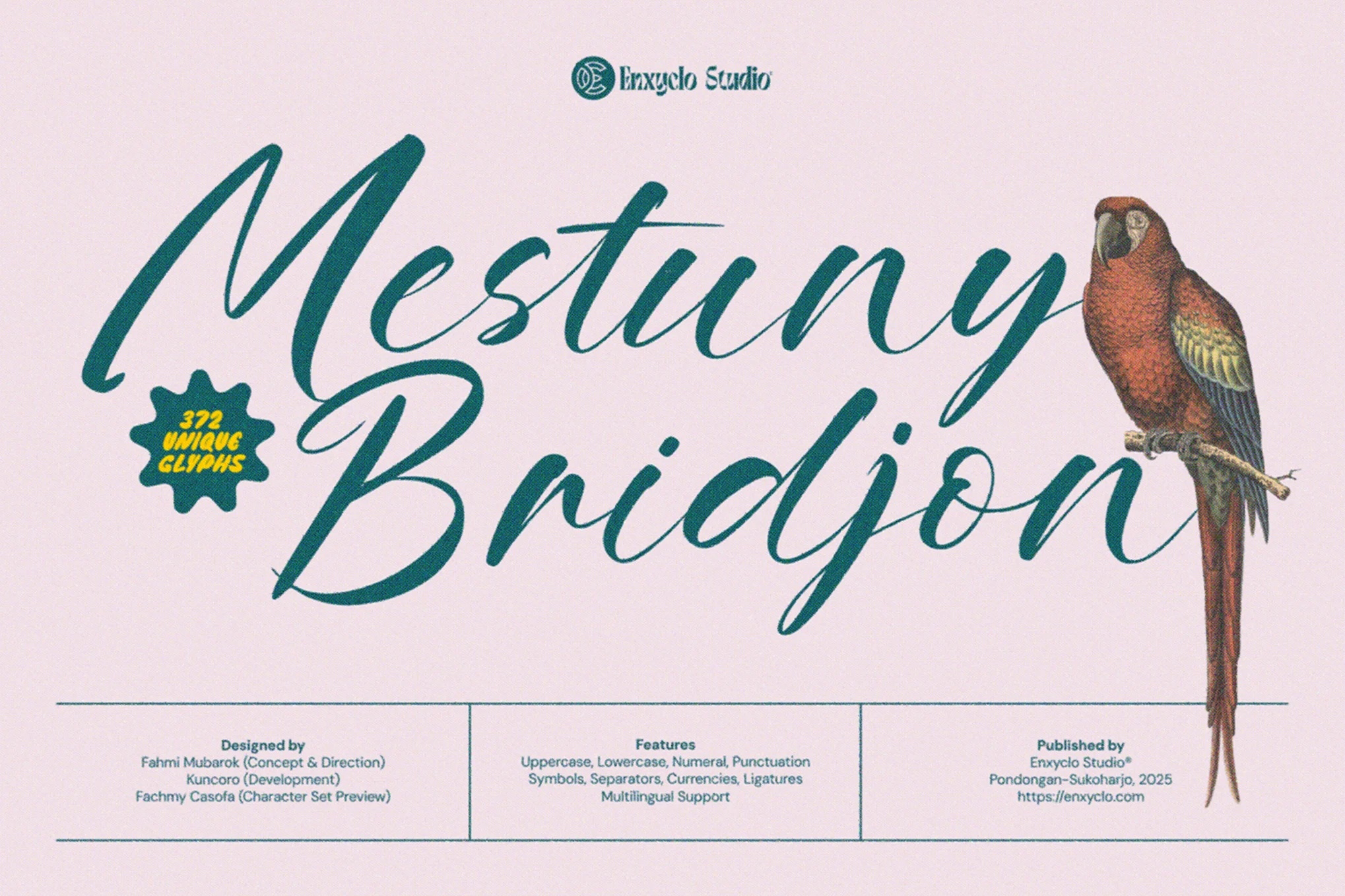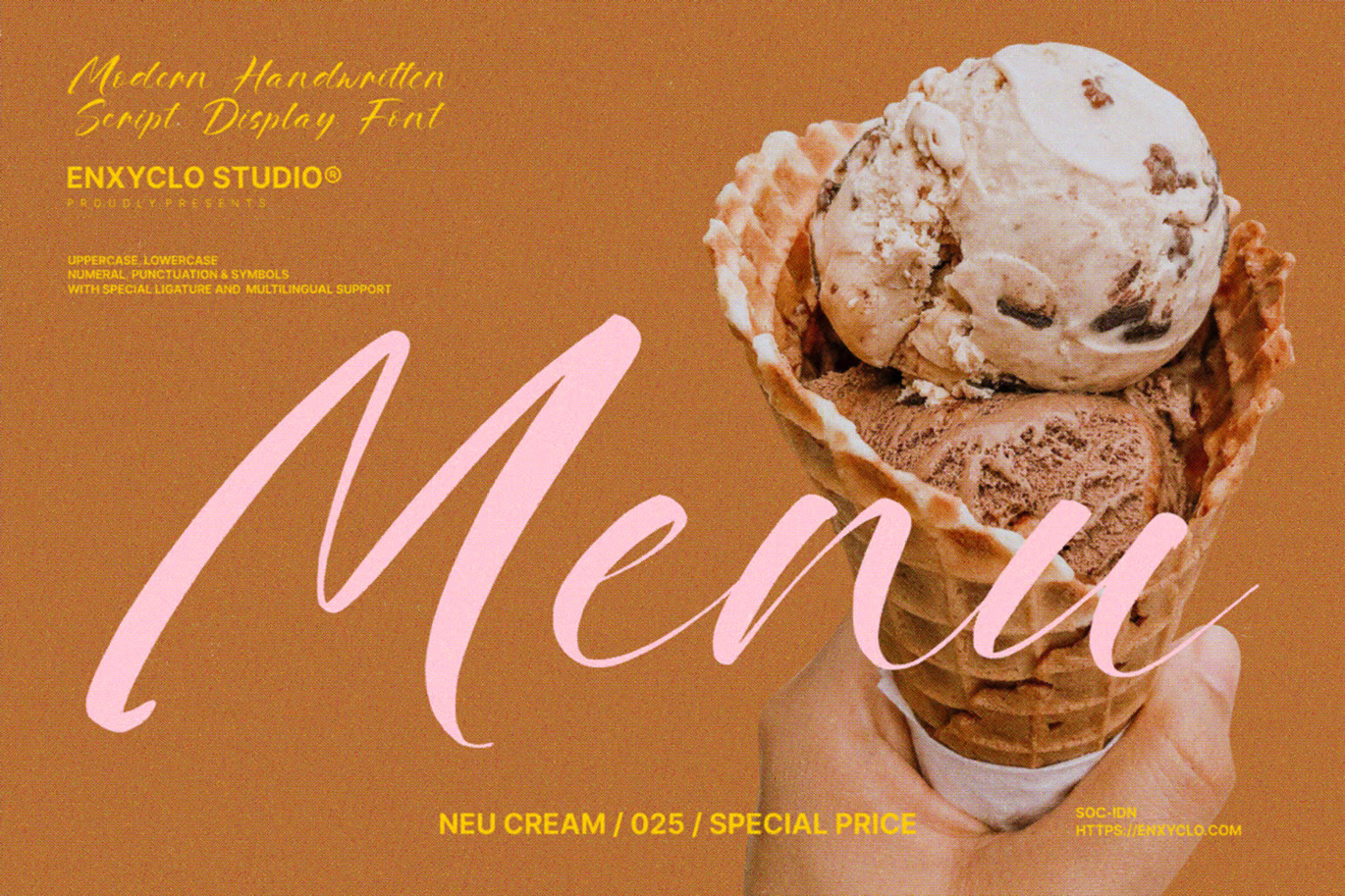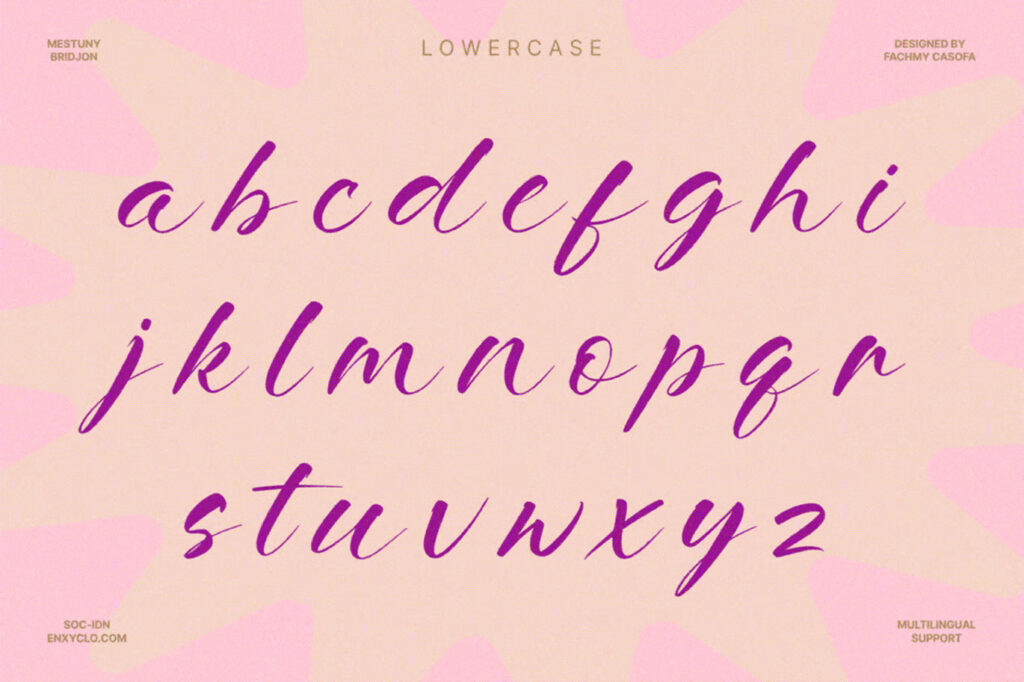
Mestuny Bridjon Modern Brush Script Font
Mestuny Bridjon is a modern handwritten brush script font that beautifully blends vintage elegance with a contemporary flow. Crafted with artistic precision, this font adds a handcrafted, authentic touch to your designs. Ideal for branding, packaging, editorial headlines, wedding invitations, and stylish quotes, it brings bold yet graceful character to every project. Whether you’re designing a brand identity or looking for a versatile font for personal creations, Mestuny Bridjon offers the perfect combination of sophistication and flair.
Mestuny Bridjon Modern Brush Handwritten Script Font
Mestuny Bridjon Modern Brush Script Font